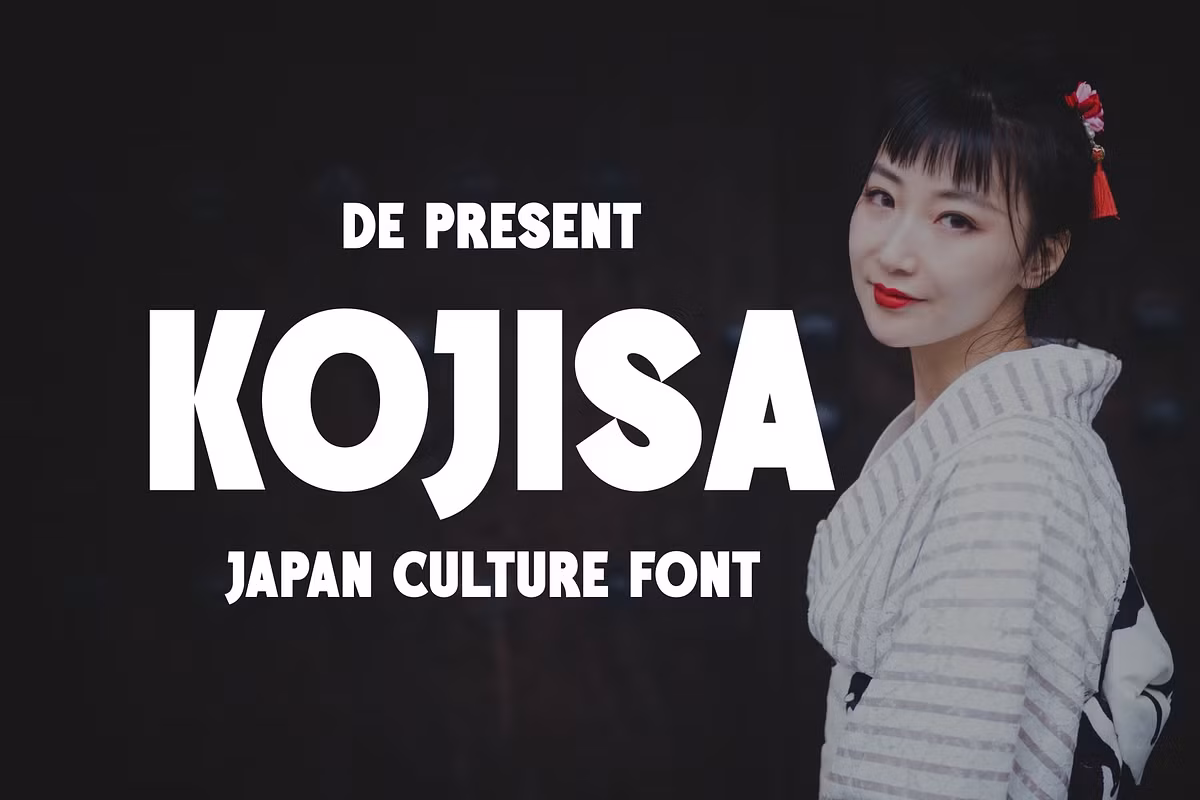
Please note that you must purchase this font for commercial use. You can download Kojisa – Bold Japan Culture Font for free, strictly for personal testing purposes only. Kojisa is a striking display font inspired by traditional Japanese aesthetics blended with modern bold typography. With its strong lines, angular shapes, and cultural flair, Kojisa Bold Japan Culture Font Free Download is perfect for Asian-themed branding, restaurant logos, posters, apparel, game titles, packaging, and event graphics.
Kojisa captures the essence of Japanese design—minimal, powerful, and culturally rich—making it ideal for projects that need a unique and meaningful visual voice. The font includes uppercase characters, numerals, punctuation, and multilingual support for versatile use.
Whether you're crafting authentic branding or creating bold headlines with an Eastern twist, Kojisa delivers impact and identity.